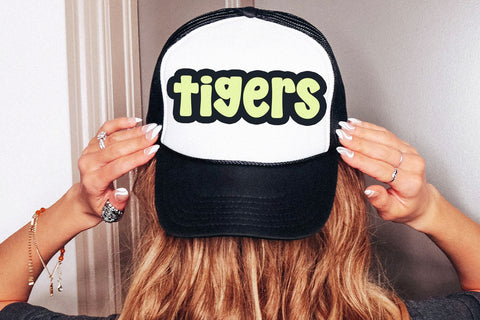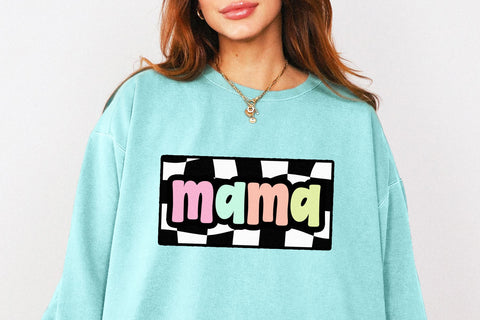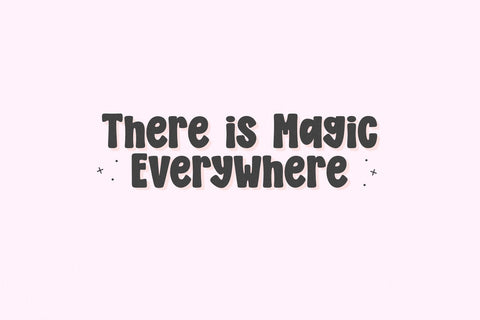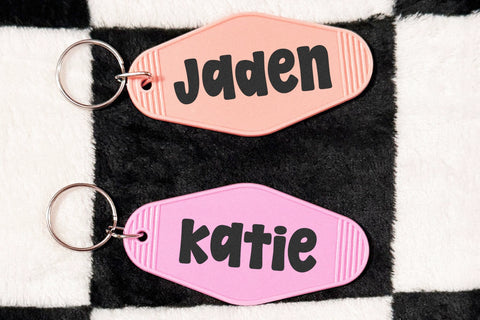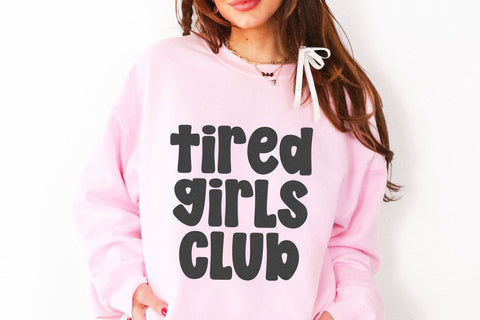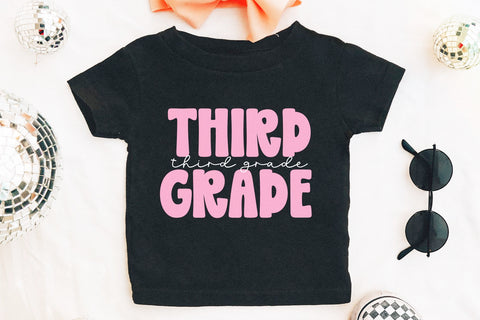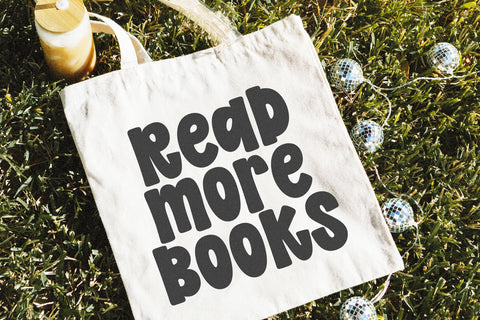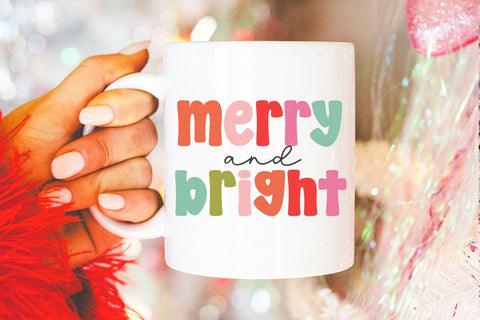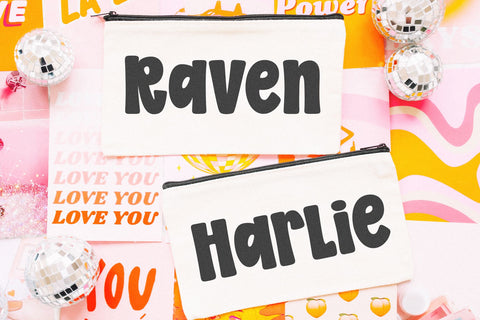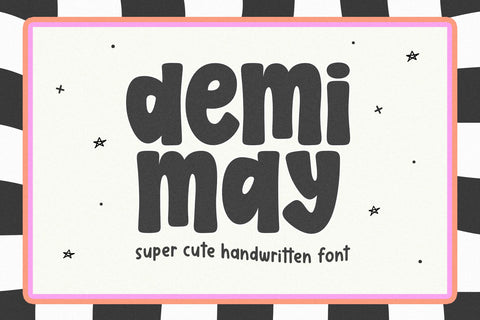
Demi May - Cute Bubbly Font
Demi May is a cute and bubbly handwritten font.
This font is perfect for cricut projects, canva, teachers, procreate, shirts, painted banners, stickers, logos, branding, greeting cards, posters, keychains, planners and more!